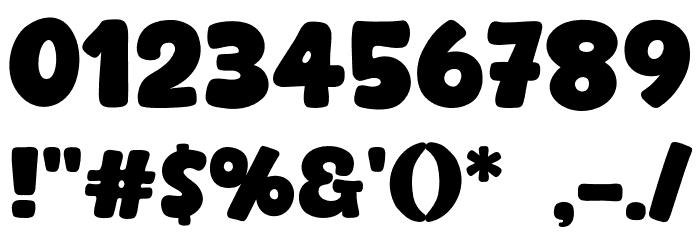
Bold Days Font
This font features a bold and playful design with rounded edges and a bubbly appearance. The characters are thick and uniform in weight, giving a sense of fun and approachability. The uppercase and lowercase letters maintain a consistent style, with a slight variation in height and width that adds to the font's charm. The numbers and special characters follow the same design principles, ensuring a cohesive look across all elements. The font's overall aesthetic is casual and friendly, making it suitable for projects that require a touch of whimsy.
A bold, playful font with rounded edges and a bubbly appearance.
- Font: Bold Days
- Proposed Projects: Ideal for children's books, playful branding, party invitations, and fun posters.
- Overall Style: Playful